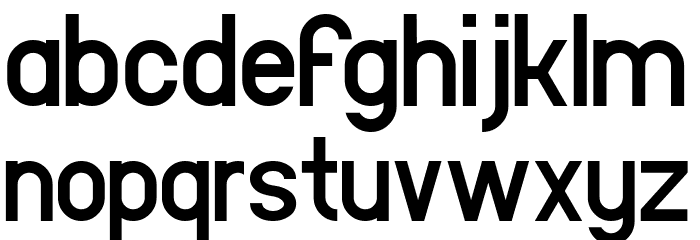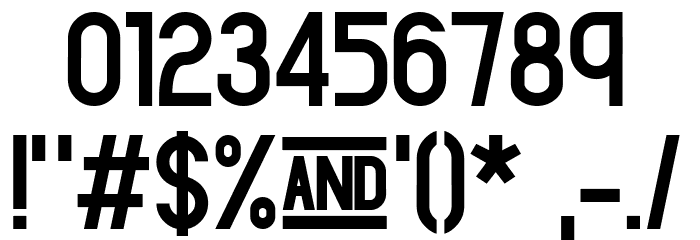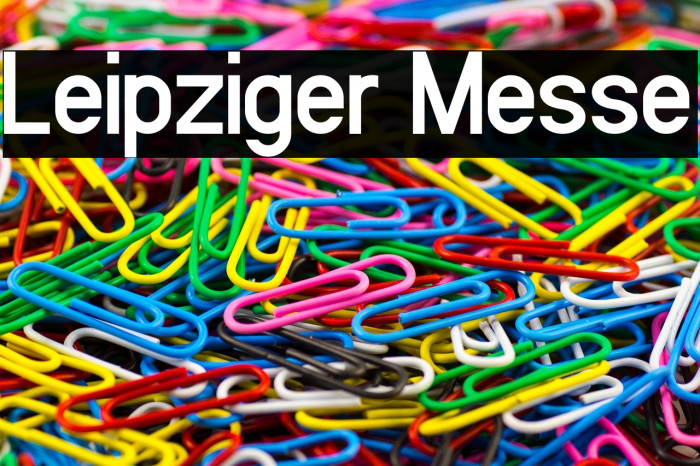
Leipziger Messe Font
This font features a bold and modern sans-serif style with clean, geometric lines. The uppercase and lowercase letters are well-proportioned, offering a consistent and balanced appearance. The numerals are distinct and easy to read, maintaining the same geometric aesthetic. Special characters are included, providing versatility for various design needs. The overall look is sleek and professional, making it suitable for contemporary design projects.
A bold, modern sans-serif font with clean, geometric lines.
- Proposed Projects: Ideal for branding, advertising, headlines, and digital media projects that require a modern and professional look.
- Use Case: Headlines, Logos, Branding